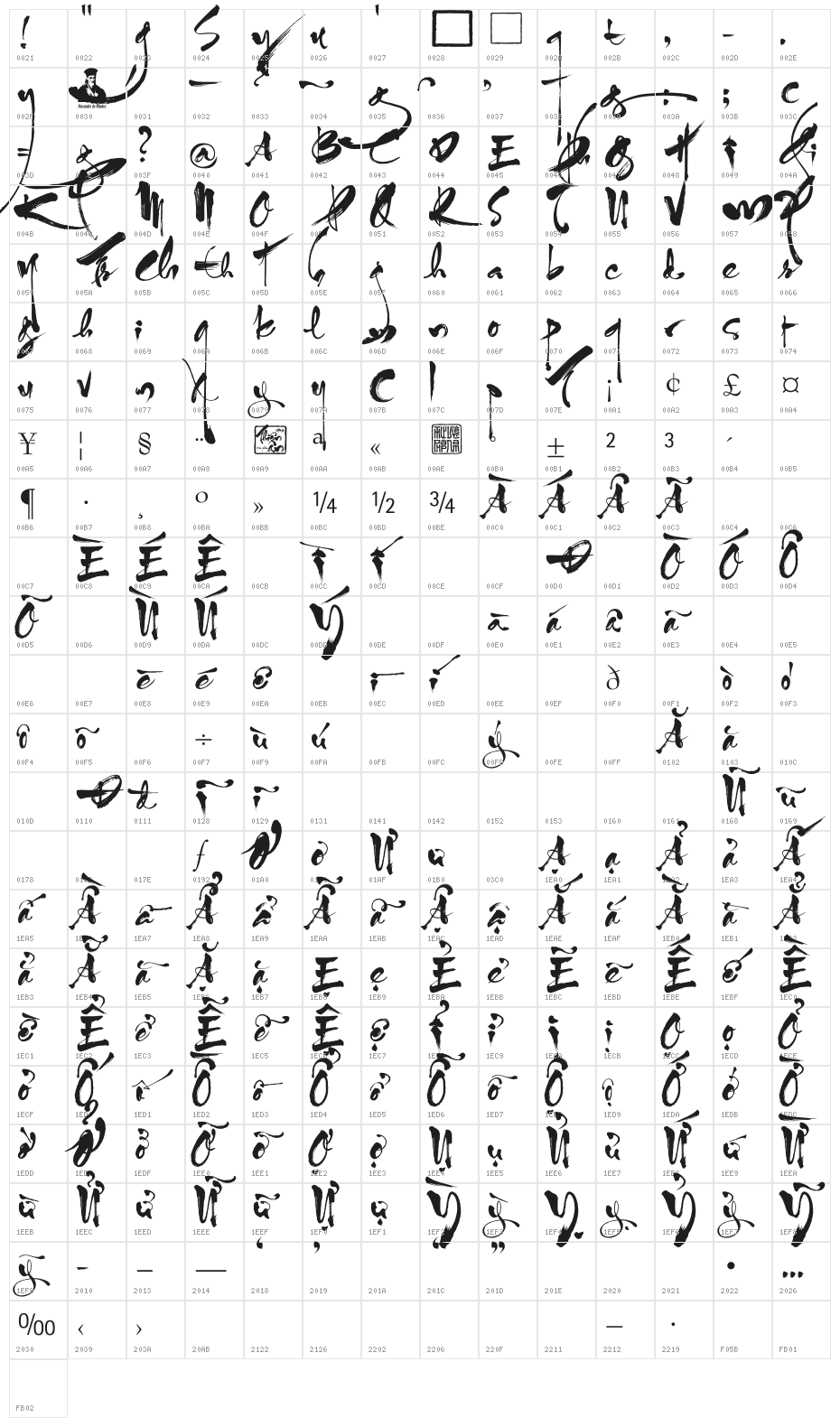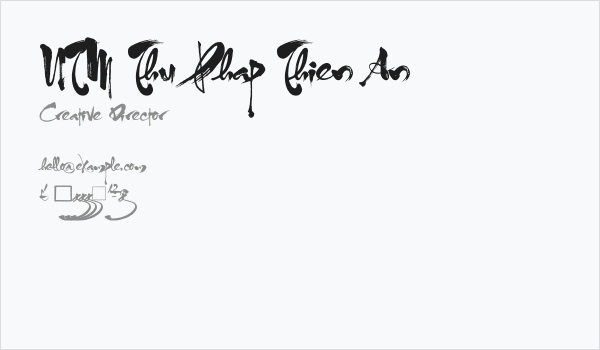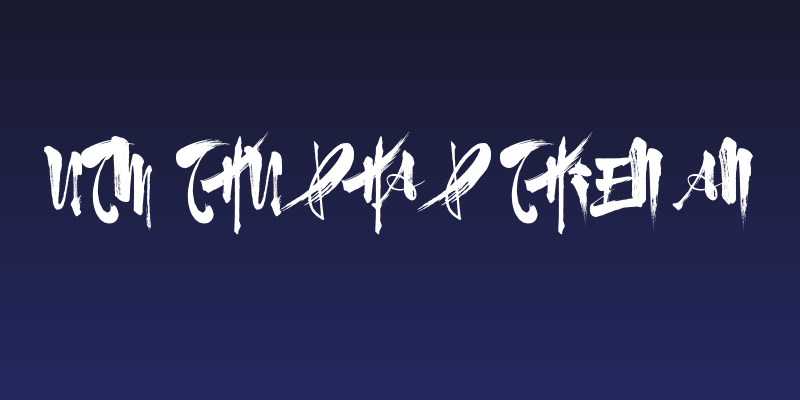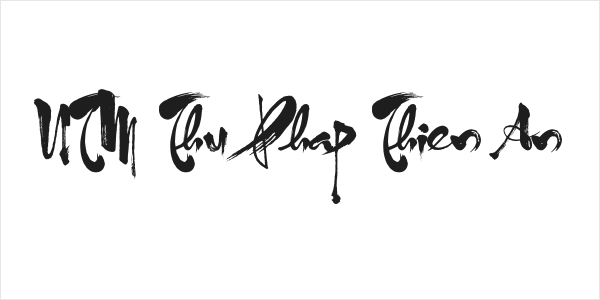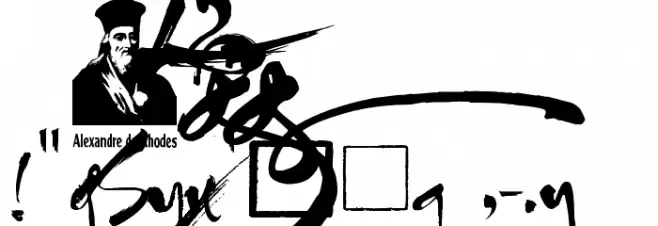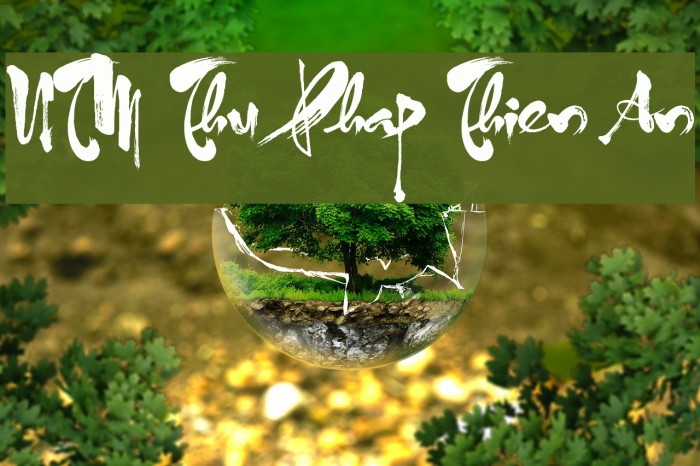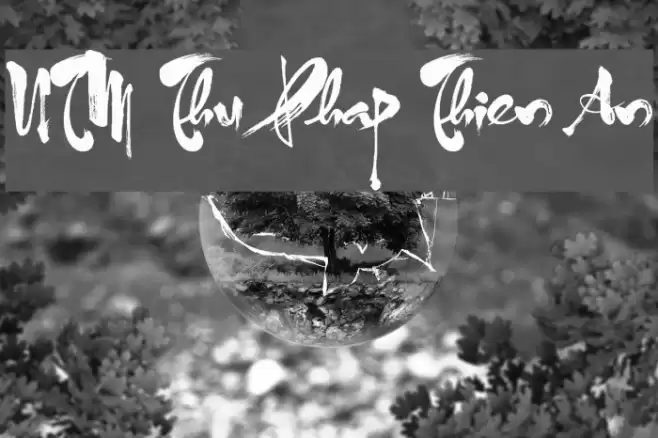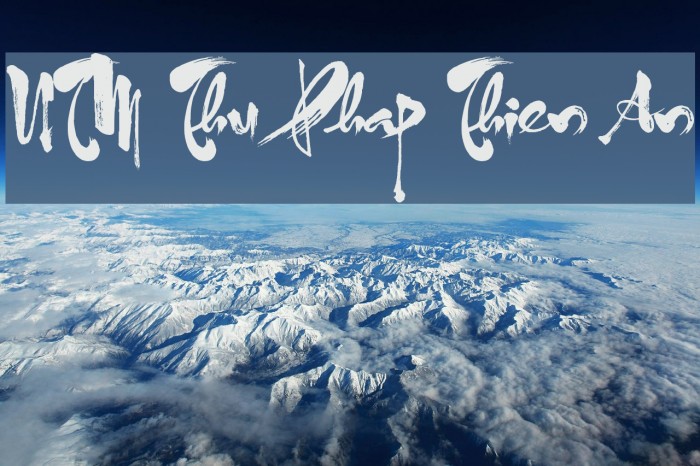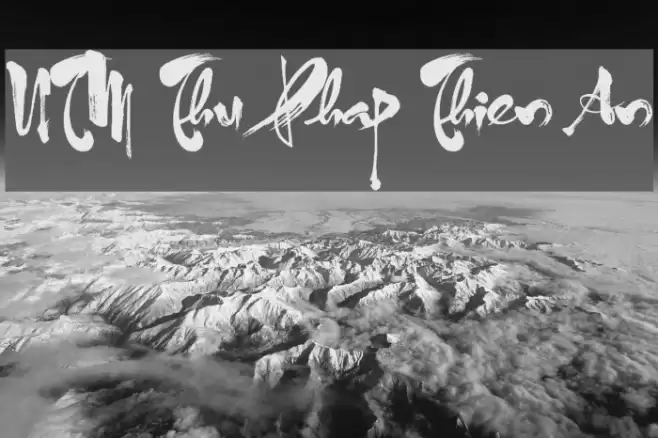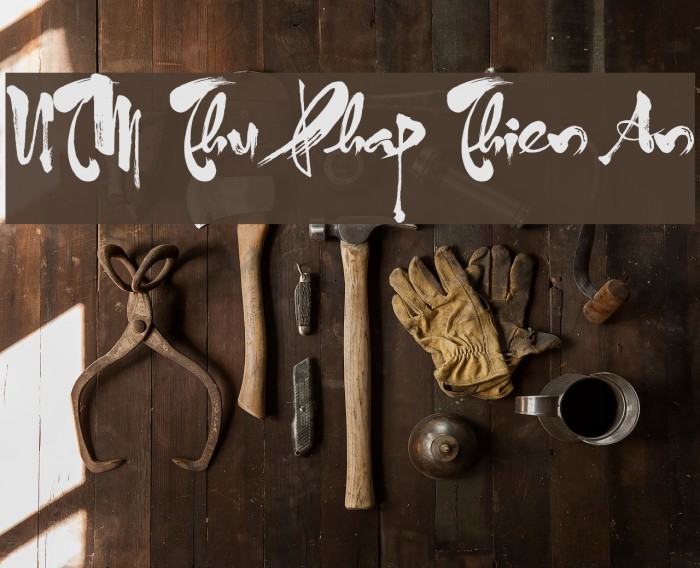
UTM ThuPhap Thien An Font
✎ Calligraphic
UTM ThuPhap Thien An Description
This font embodies a dynamic and expressive style, reminiscent of traditional calligraphy with a modern twist. The strokes are bold and sweeping, with a high degree of variation in thickness, creating a sense of movement and energy. The characters are highly stylized, with unique flourishes and an artistic flair that makes each letter stand out. The overall appearance is both elegant and dramatic, capturing the essence of hand-drawn script with a contemporary edge. This font is perfect for projects that require a touch of sophistication and creativity, making it ideal for artistic and expressive designs.
| Use Case | Logos, Headlines, Artistic projects |
| Proposed Projects | Ideal for artistic projects, branding, invitations, and expressive design work. |